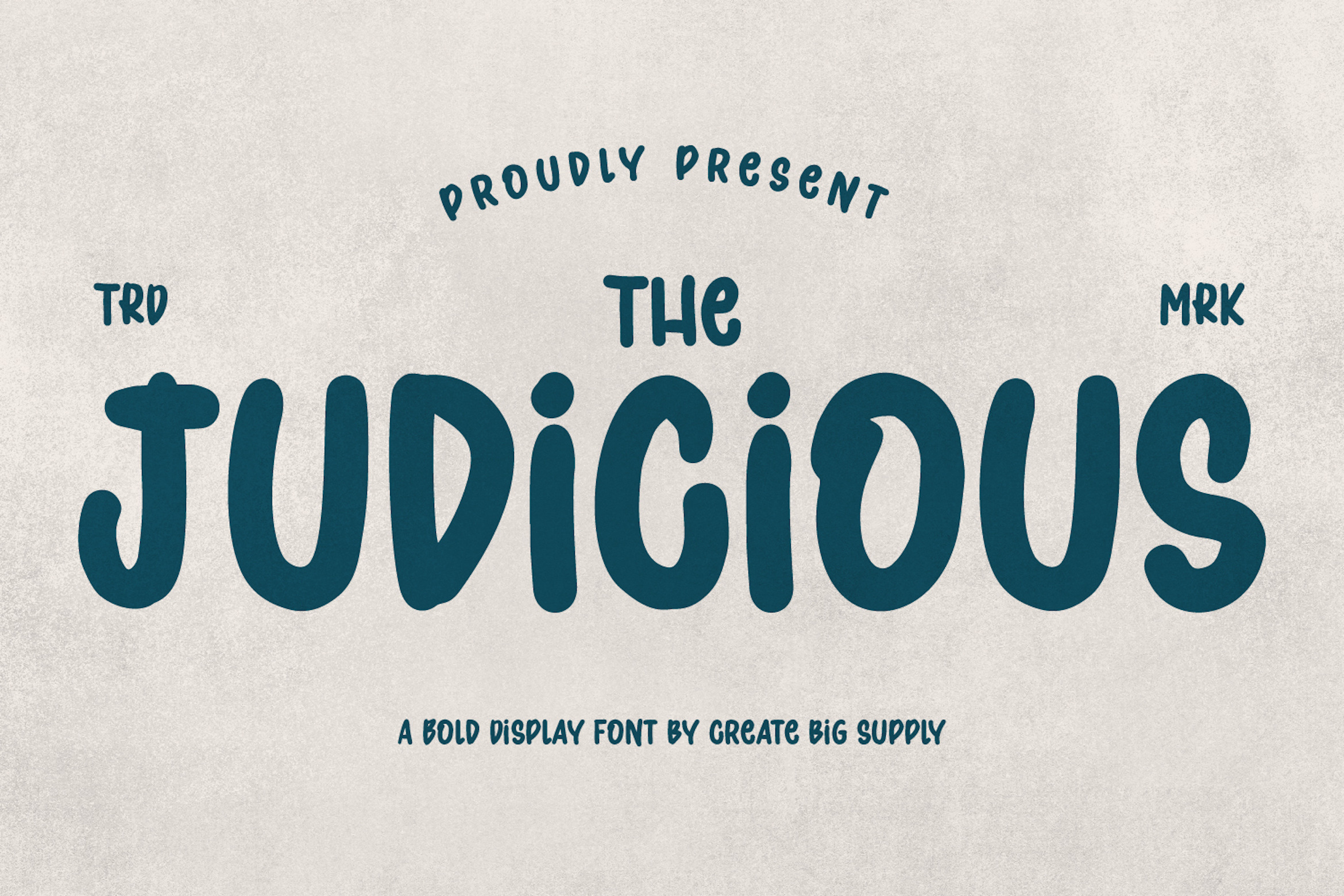
Judicious Bold and Fun Display Font
Elevate your designs with Judicious, a bold and fun display font that adds a powerful touch to your creative projects. With its eye-catching style, this font commands attention and makes a statement. Whether you're working on branding, advertising, posters, or any other design, Judicious will deliver a confident and energetic visual impact. It features both uppercase and lowercase letters, numbers, punctuation marks, multilingual support, and PUA encoding for easy access to all the unique glyphs and swashes.